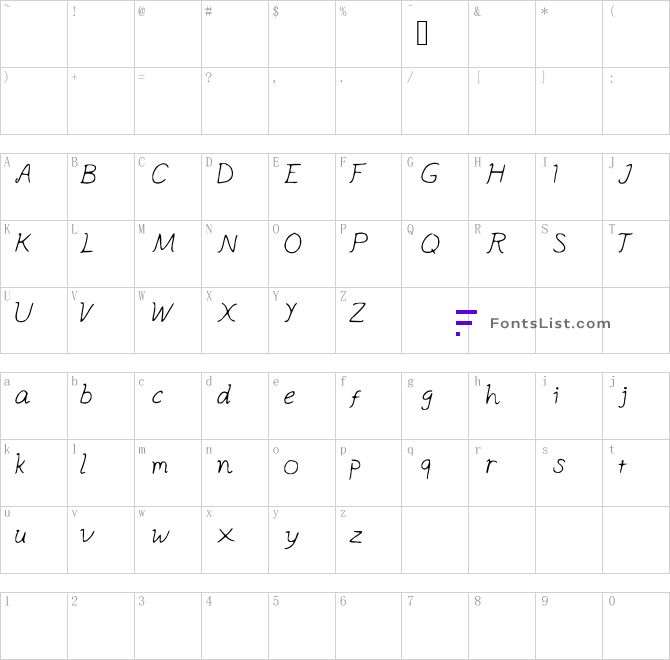
- Font Name:appleocean
appleocean.ttf is a very beautiful artistic font, appleocean.ttf is widely used in the design and printing of various books and pictures,appleocean.ttf has a strong visual impact,appleocean.ttf is a commonly used font in newspapers, magazines and books, and is used in posters, e-commerce Poster design, store design, logo design, font design and other fields.appleocean.